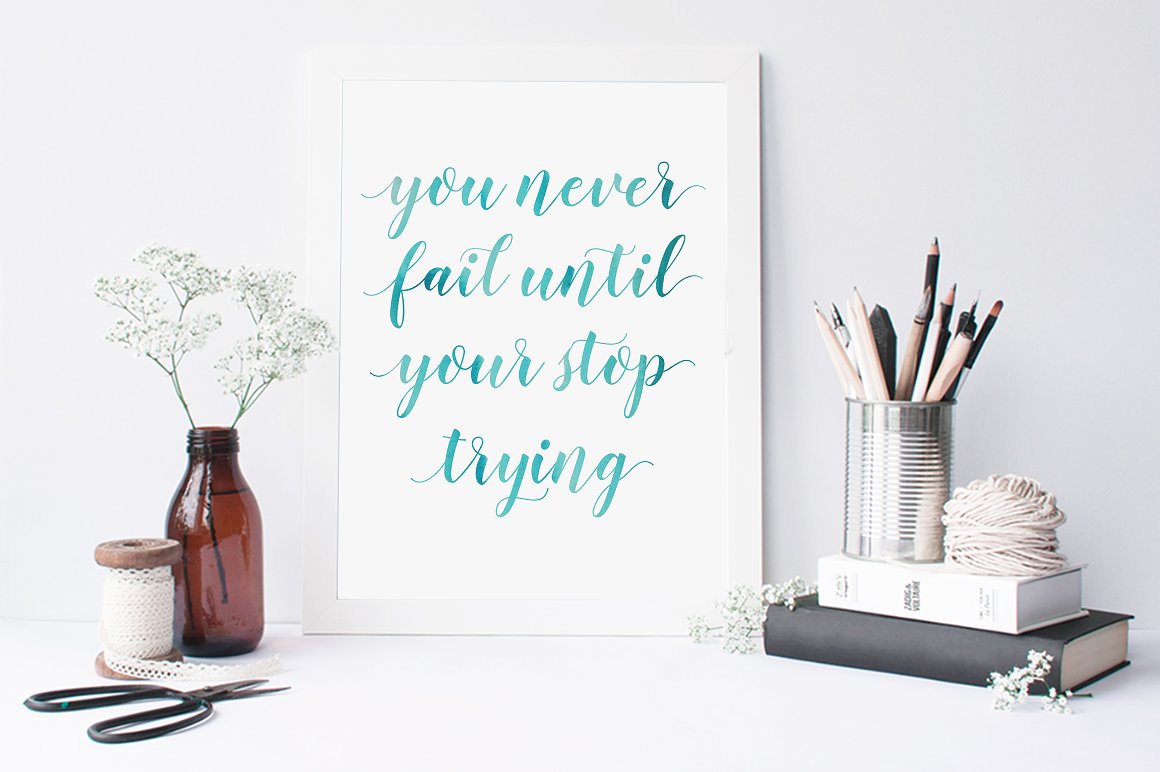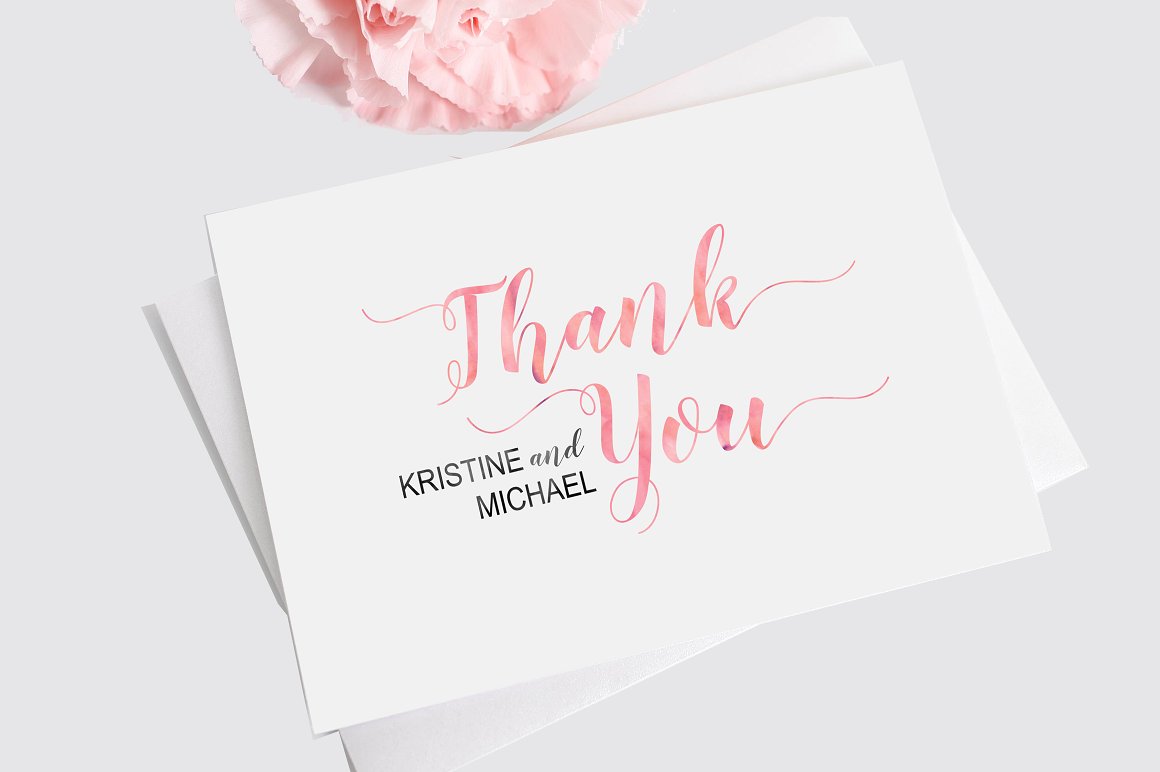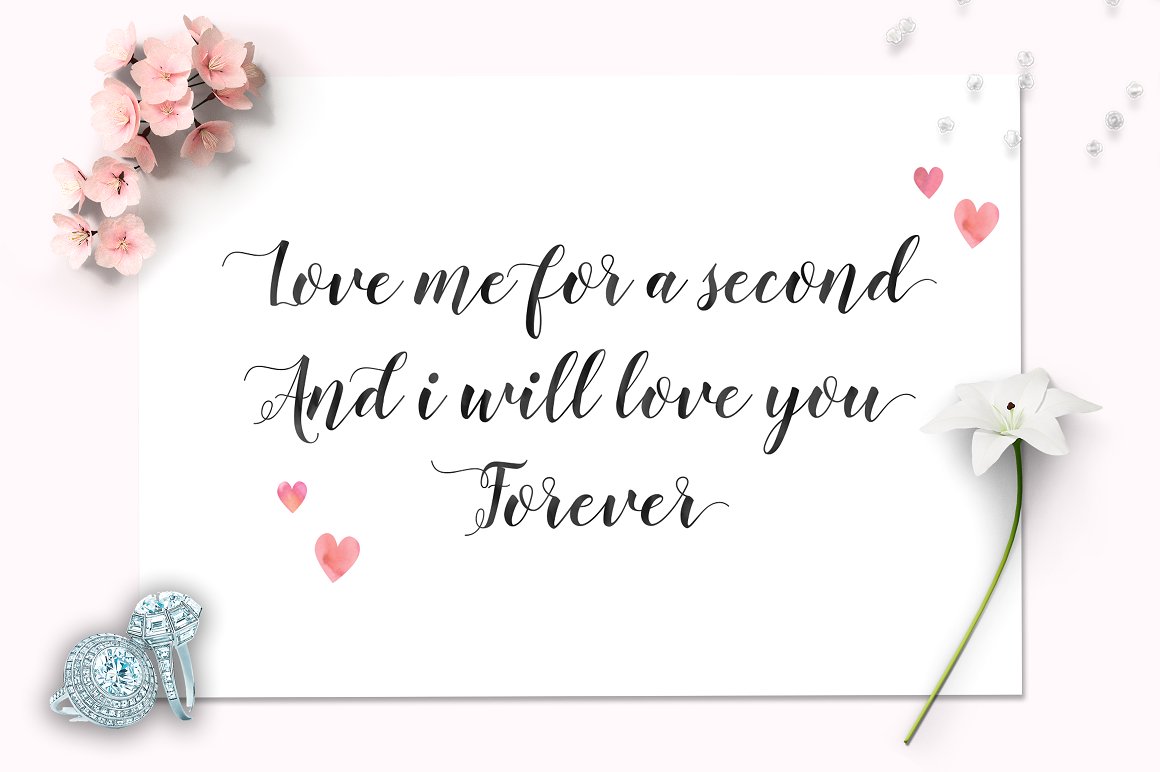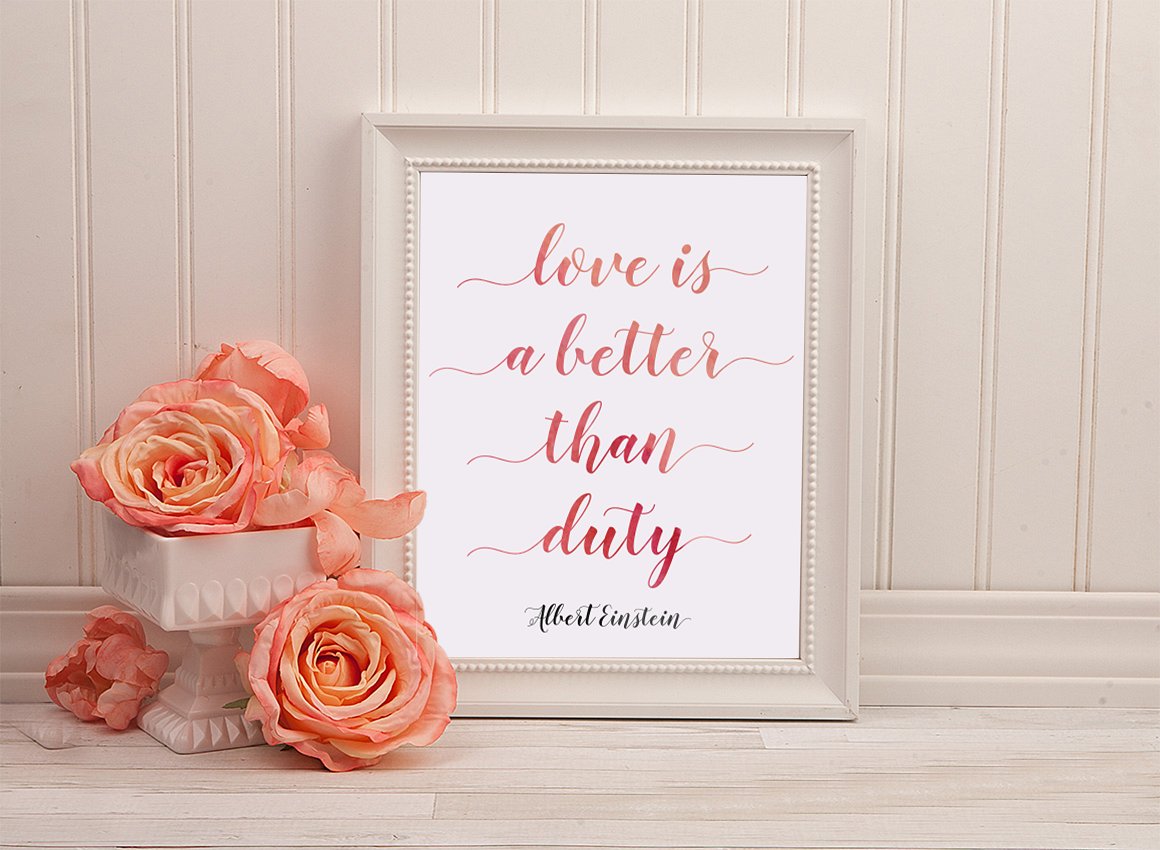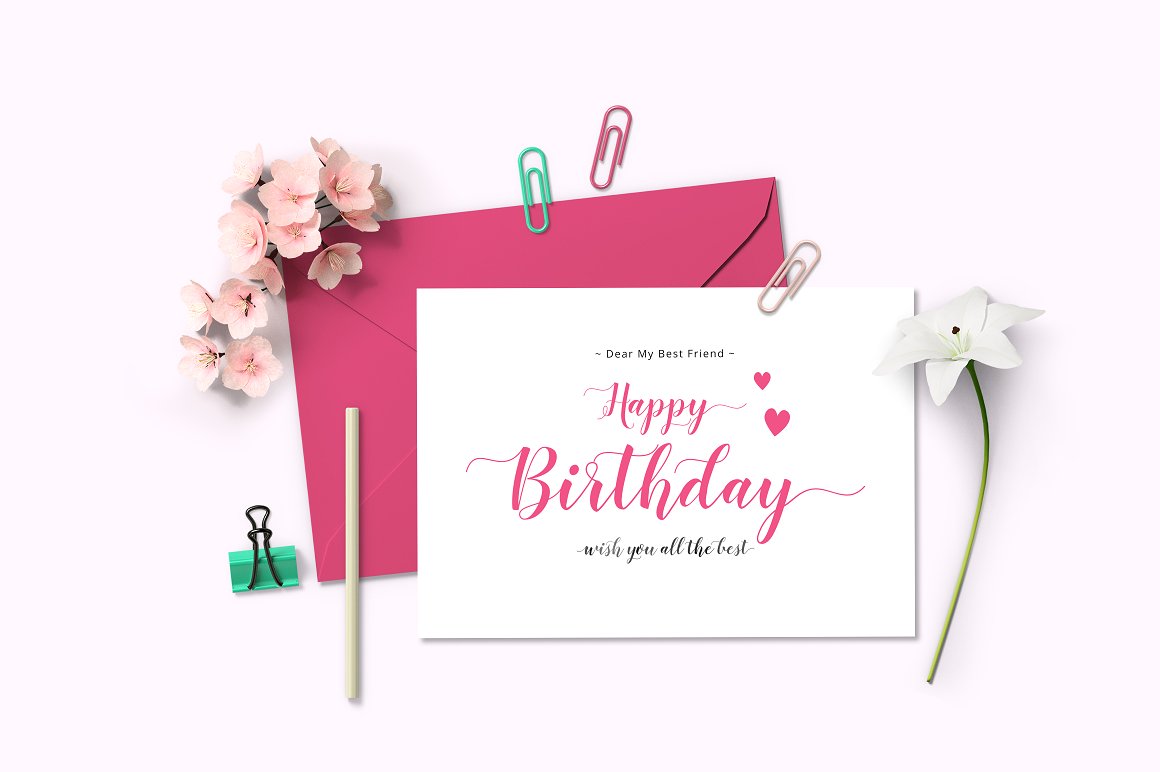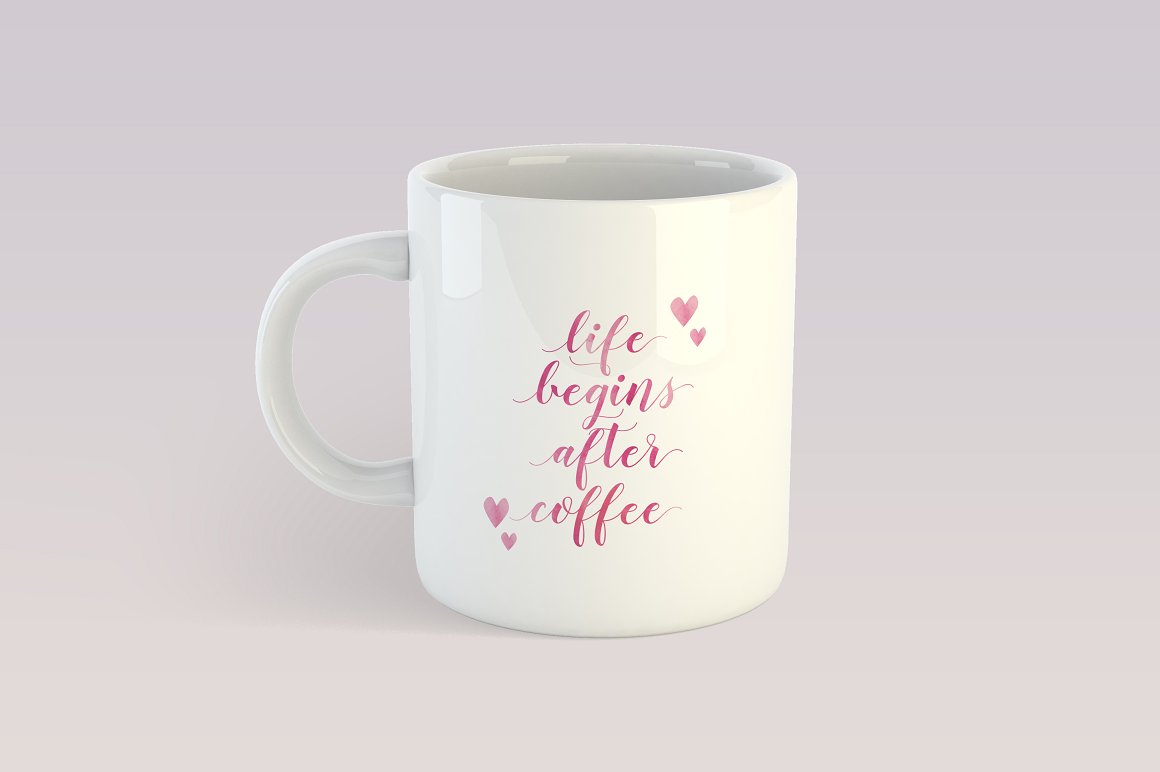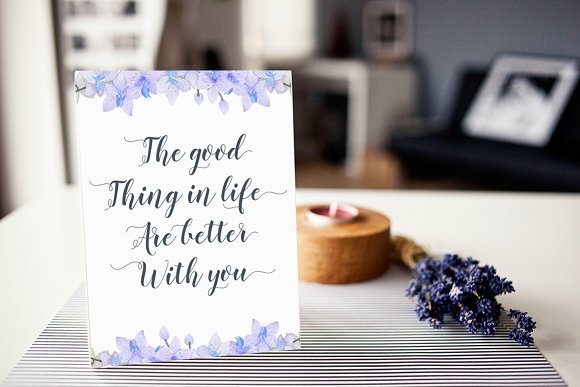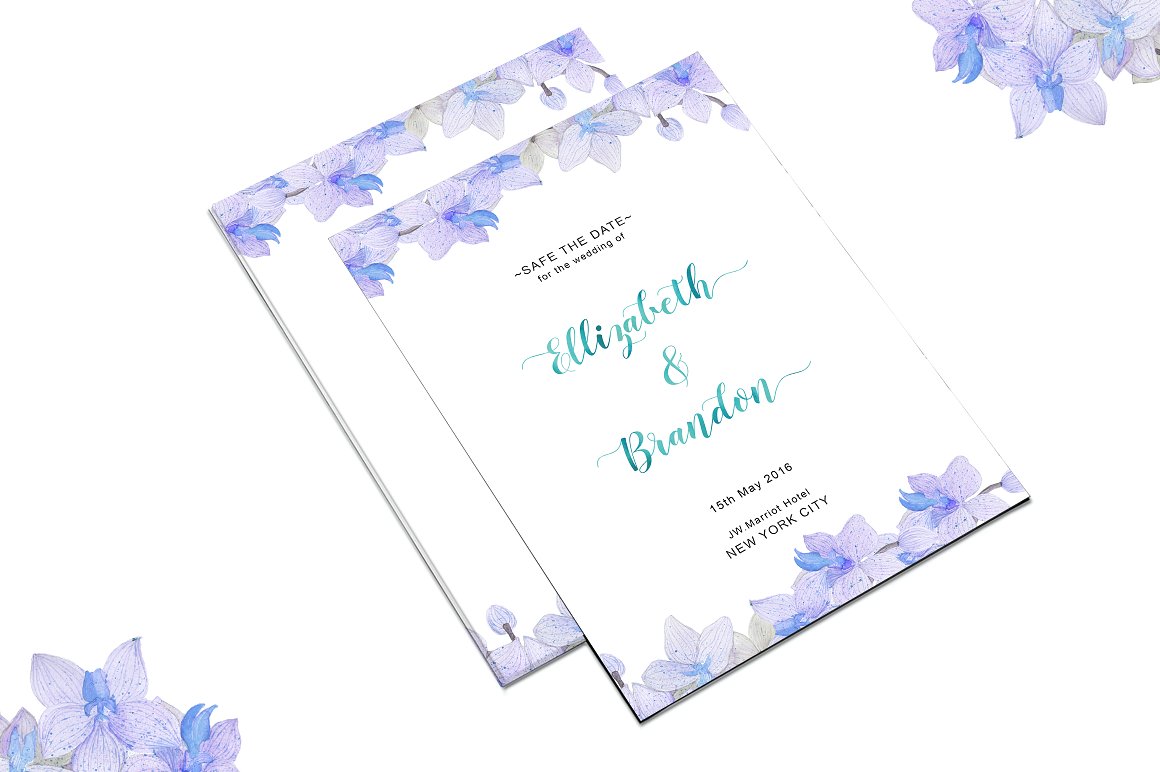
HomeScript FontsPrimadona Font Script Fonts Primadona Font FacebookXPinterestWhatsApp Primadona Font Poster 2 Primadona Font Poster 3 Primadona Font Poster 4 Primadona Font Poster 5 Primadona Font Poster 6 Primadona Font Poster 7 Primadona Font Poster 8 Primadona Font Poster 9 About Primadona Font Primadona is a stunning calligraphy-style font featuring 375 unique handmade glyphs. DOWNLOAD NOW People also explored Christmas Monstera Font Shamrock Font Simple Interior Font Ananta Font Carpathia Font Easter Egg Flower Font 20 Holiday Flat Lay Items Growing Up Font Vintage Font 256 0 TagsPrimadona Font Previous articleRachelle FontNext articleHonesty Font LEAVE A REPLY Cancel reply Comment: Please enter your comment! Name:* Please enter your name here Email:* You have entered an incorrect email address! Please enter your email address here Website: Save my name, email, and website in this browser for the next time I comment. Personal Use Free Potato Pancakes Personal Use Free Read more about this font BD Nokio Personal Use Free Read more about this font Gupis Personal Use Free Read more about this font Mama Personal Use Free Read more about this font BLOG Top 7 Google Fonts Alternatives for Faster and Privacy-Friendly Web Design (2025) Top 7 Google Fonts Alternatives for Faster and Privacy-Friendly Web Design (2025) When it comes to web typography, Google Fonts has long been the go-to... Top 10 Handwritten Fonts That Elevate Your Designs Free vs Paid Fonts: Why Investing in Premium Fonts Is Worth It 5 Fonts That Will Dominate Design Trends in 2026